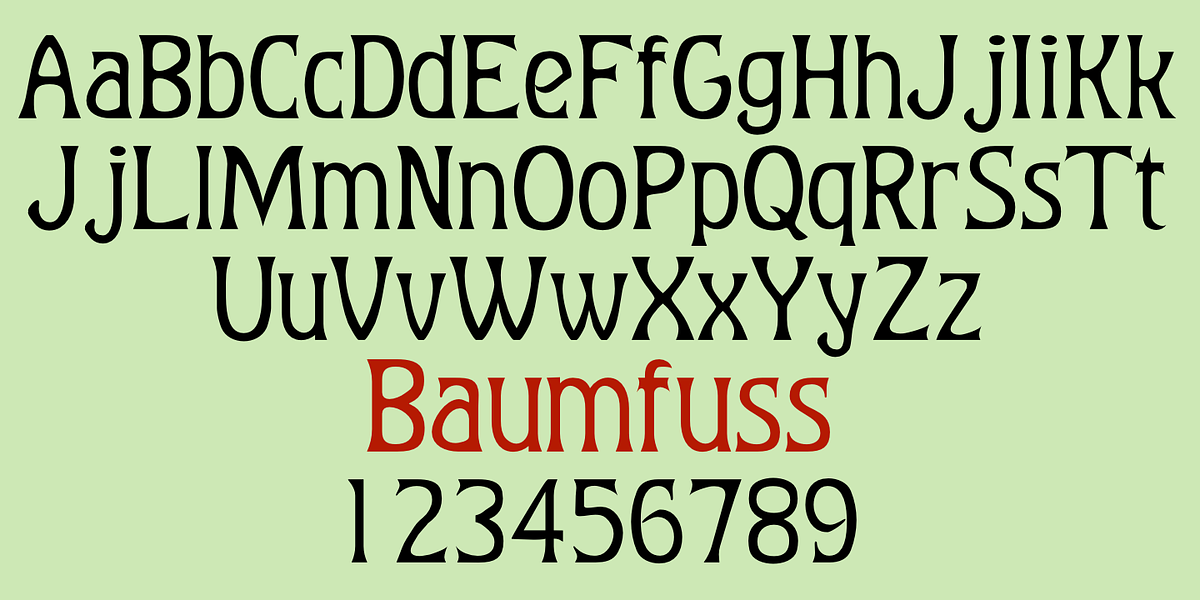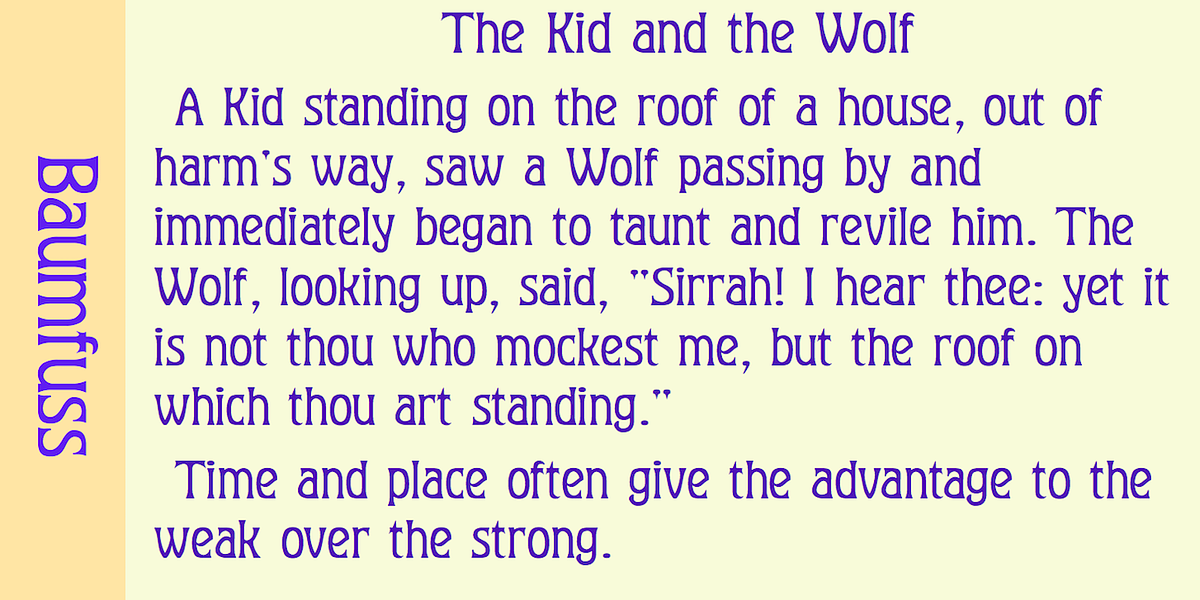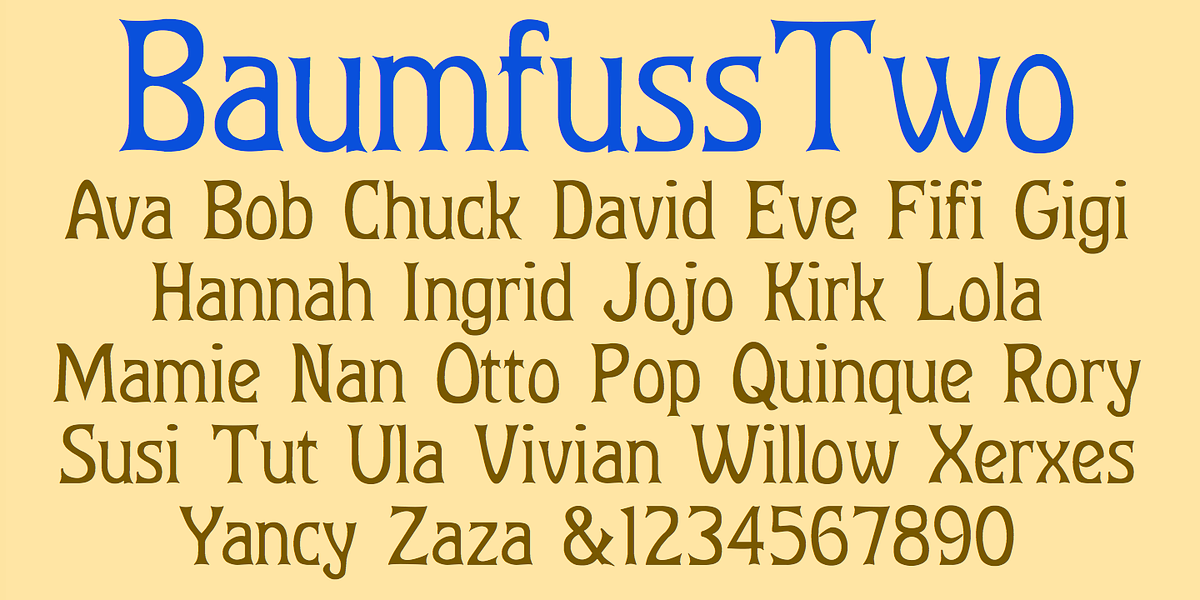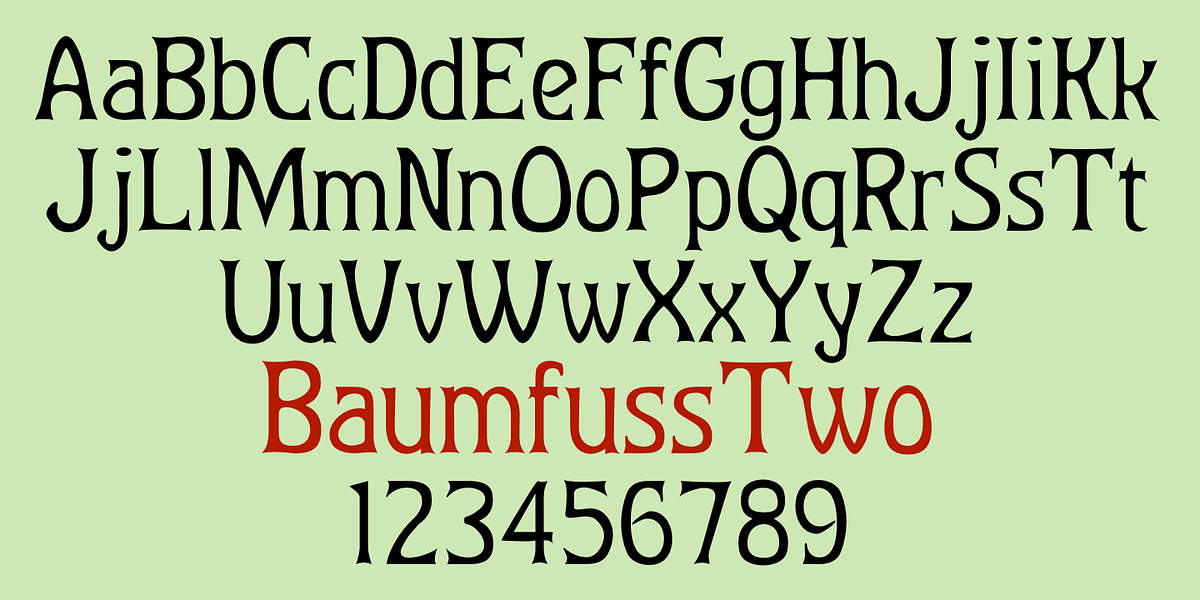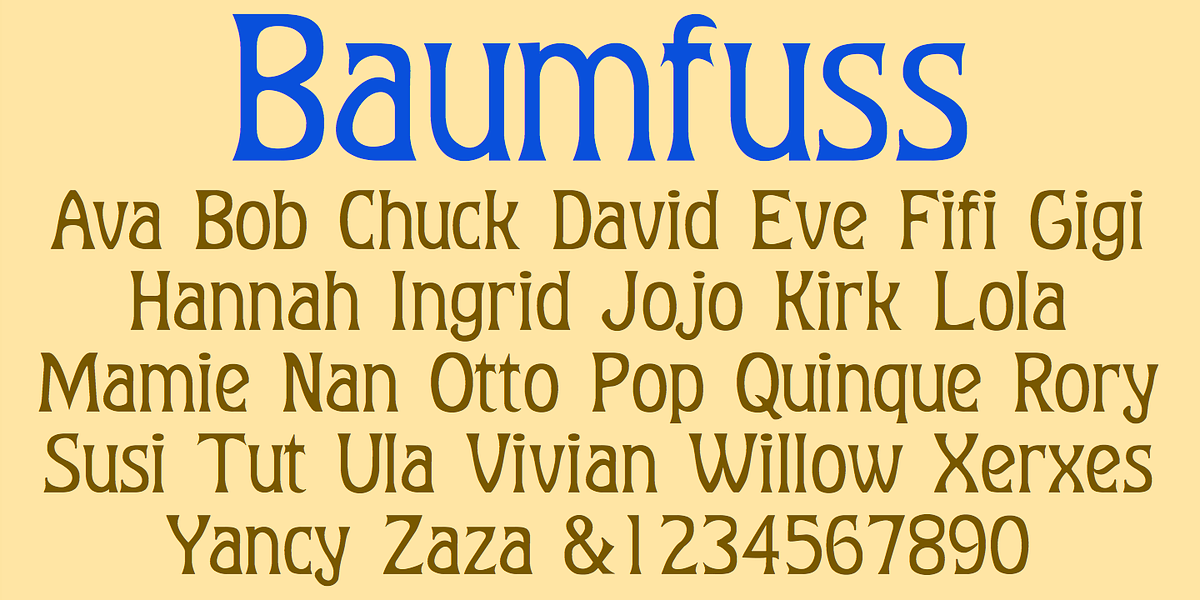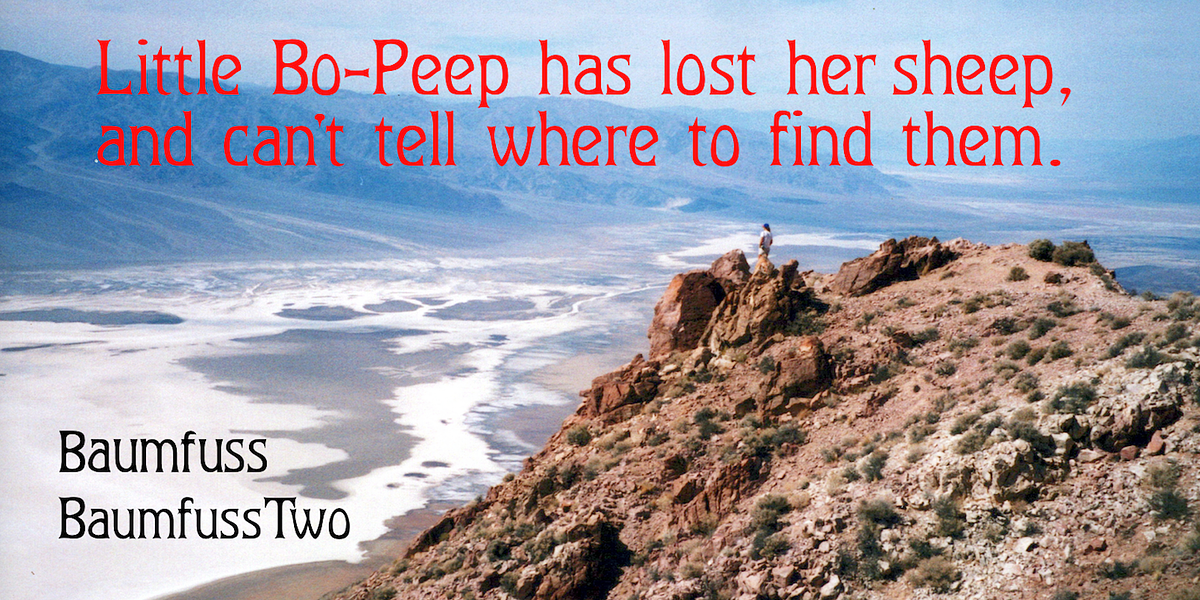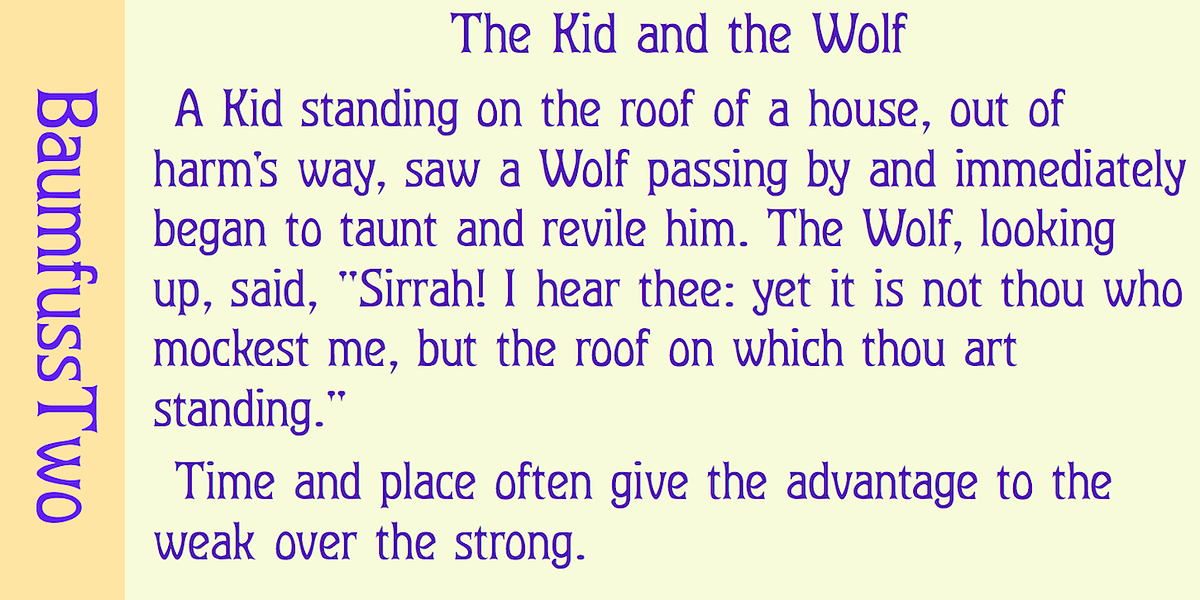
Baumfuss
Baumfuss and BaumfussTwo are unpolished, crude typefaces with small flared serifs and very few straight lines. They are a bit heavy to be easily readable at smaller point sizes. Baumfuss has a high x-height, while BaumfussTwo has a more conventional x-height.